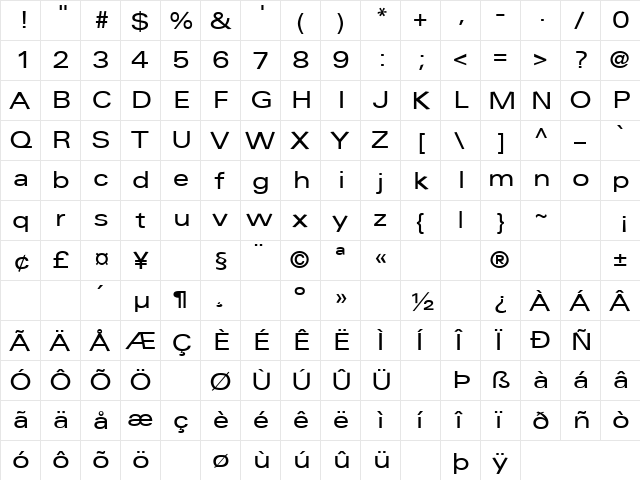
Black Dog 2 Regular
Design Context for Black Dog 2 Typeface
Black Dog 2 takes a measured approach to typography — its balanced proportions and neutral character make it a reliable workhorse for both digital and print work.